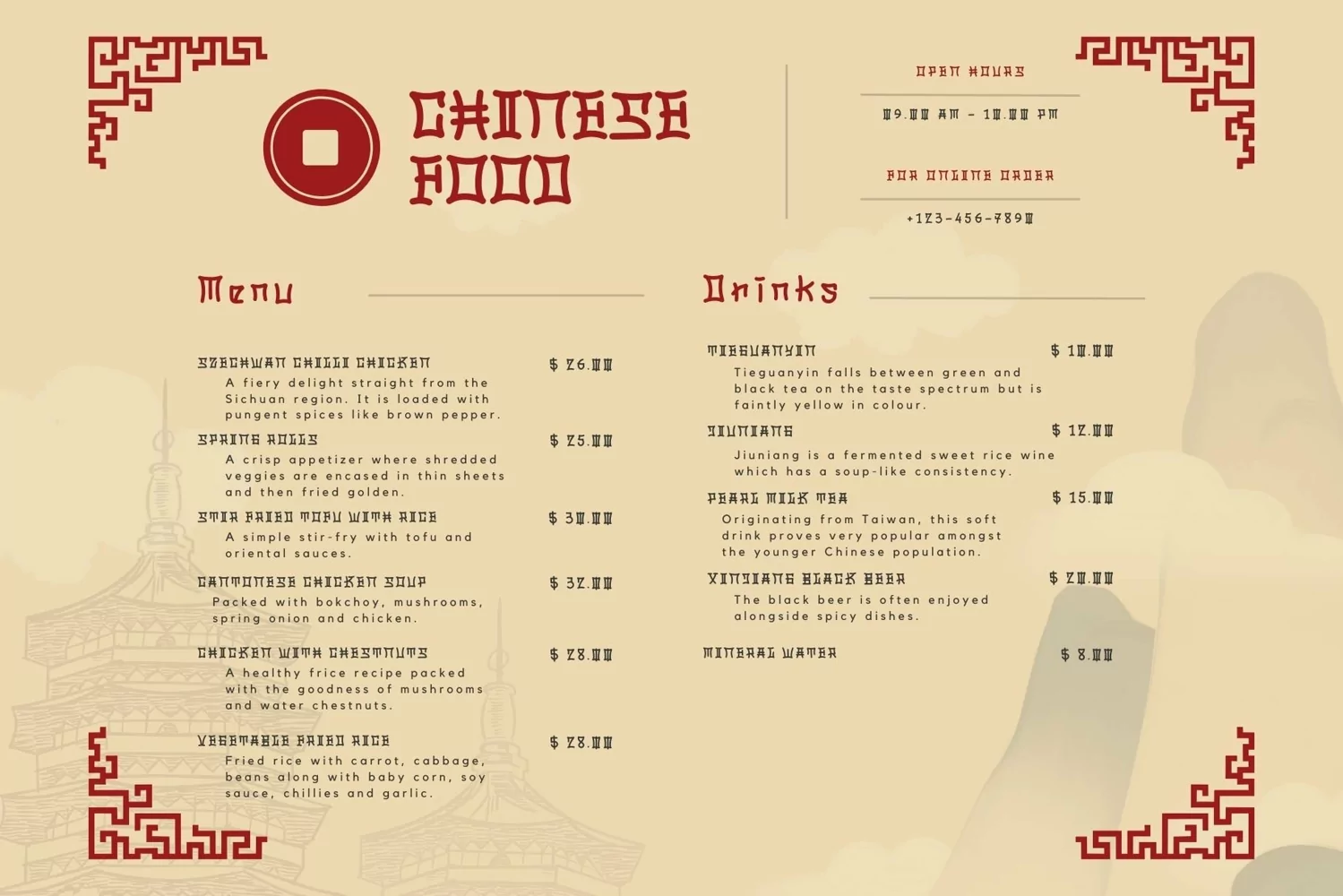
Introducing "Beth Pao" - Your Original Hand-Drawn Font with Chinese Typography Style
Experience the timeless elegance of "Beth Pao," a font meticulously crafted with original hand-drawn artistry and infused with the rich essence of Chinese typography. Perfect for adding a touch of sophistication to your projects, this font is ideal for posters, invitations, and branding materials, exuding a captivating charm that reflects the beauty of Chinese script.
Key Features:
Original Hand-Drawn Craftsmanship: Each character in "Beth Pao" is meticulously hand-drawn, ensuring a unique and authentic appearance that pays homage to the artistry of Chinese calligraphy.
Chinese Typography Style: Immerse yourself in the beauty of Chinese typography with the graceful strokes and intricate details of "Beth Pao," capturing the essence of traditional Chinese script in every letter.
Why Choose "Beth Pao":
Craft posters and invitations that showcase the elegance of Chinese culture, captivating your audience with the timeless charm of "Beth Pao."
Create branding materials that exude sophistication and cultural richness, thanks to the refined aesthetics of Chinese typography embodied in this font.
Establish a brand identity that reflects appreciation for Chinese heritage and artistic refinement, setting your designs apart with the distinctiveness of "Beth Pao."